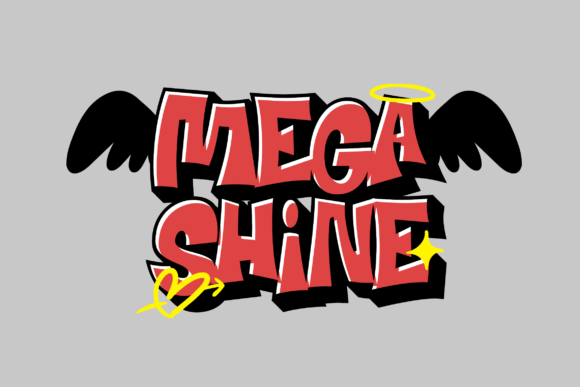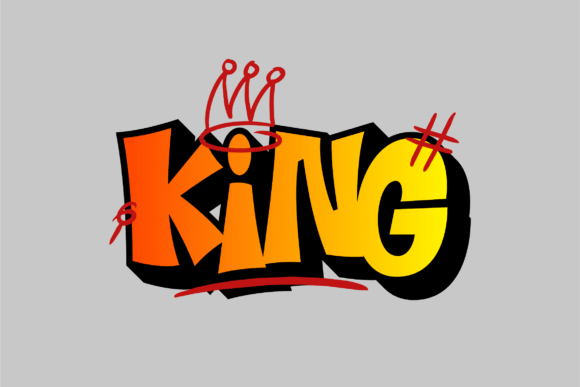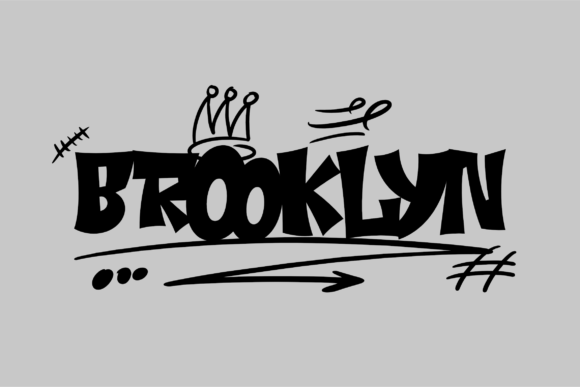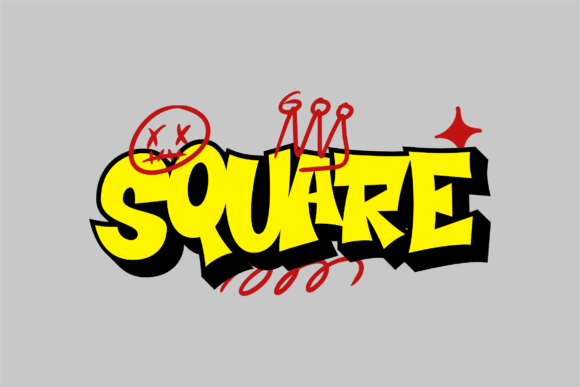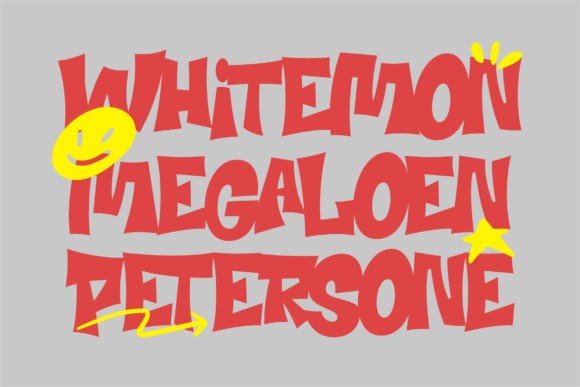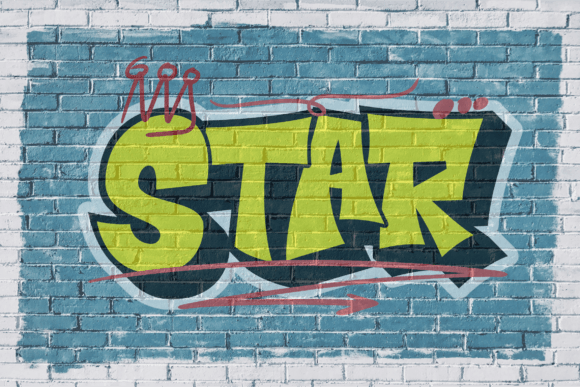
Introduction to Grandboom Font
Grandboom is a bold and expressive graffiti-style font that captures the raw energy of street art.
Its thick, dynamic strokes and exaggerated curves give it a rebellious and urban aesthetic The letters have a strong 3D effect, often resembling the hand-drawn tags you’d see on city walls or subway cars.
Key Features of Grandboom Font
Why Choose Grandboom Font?